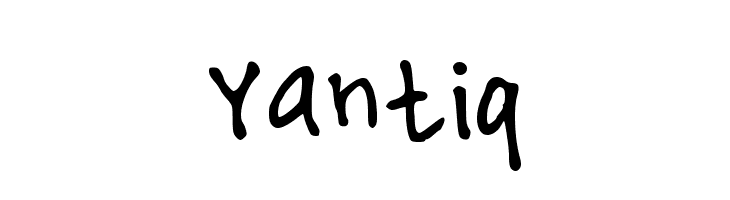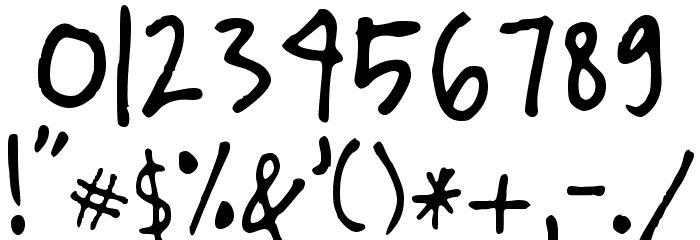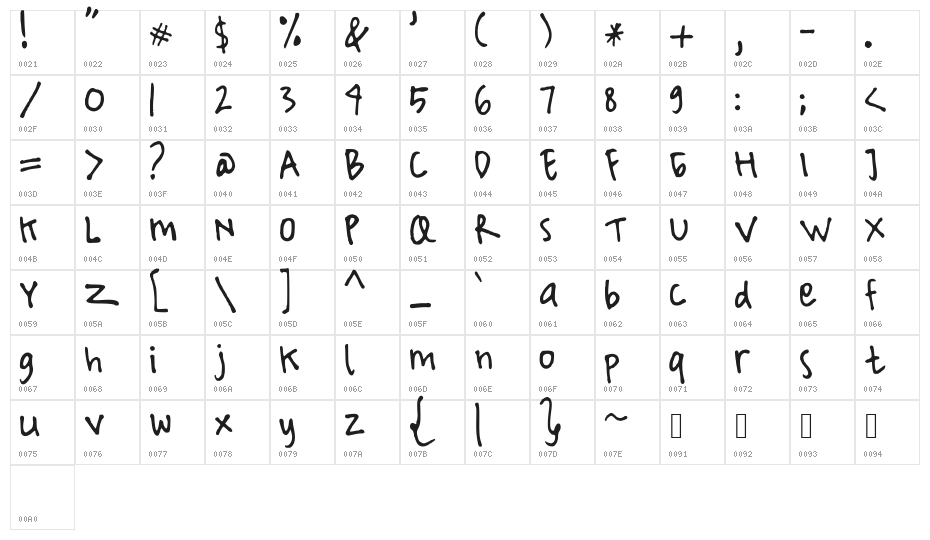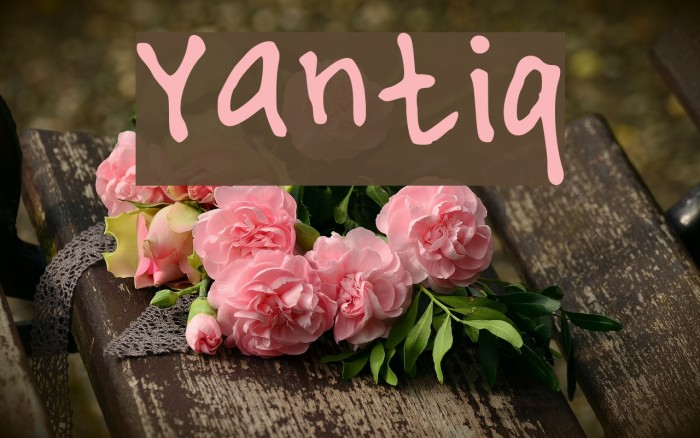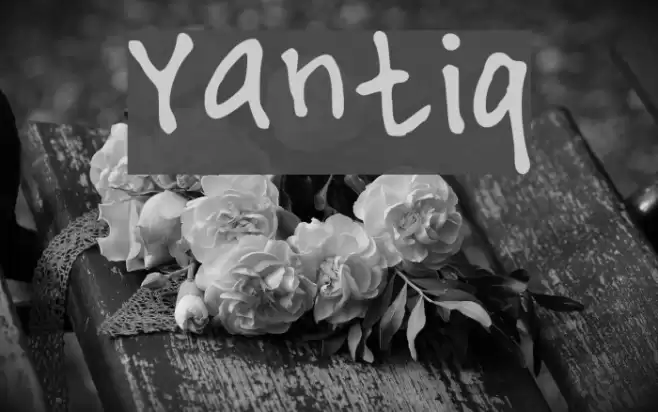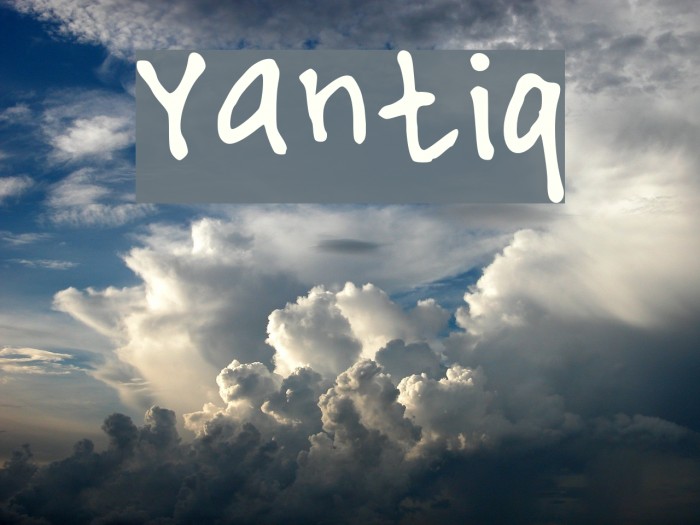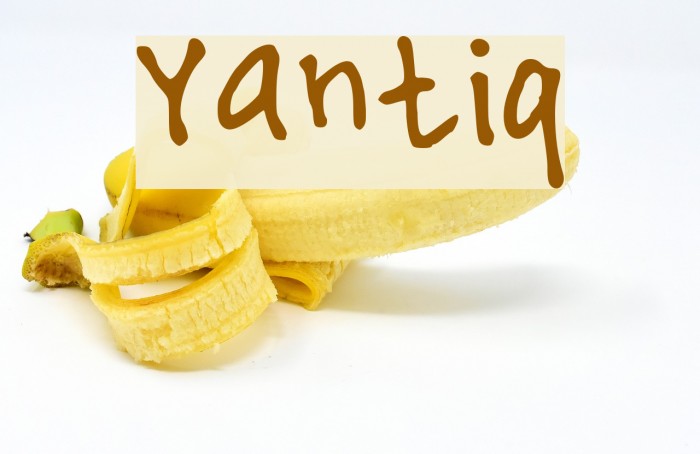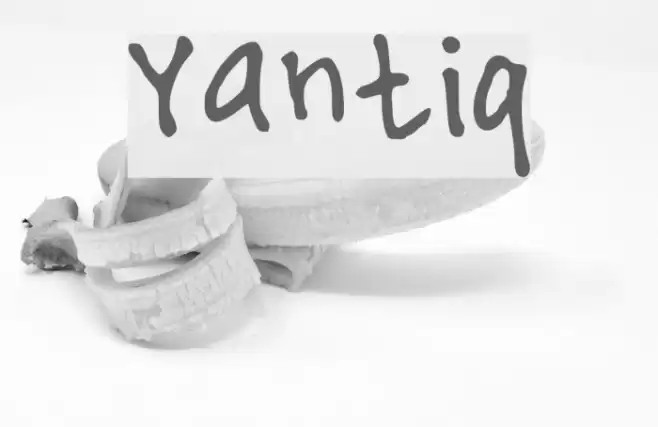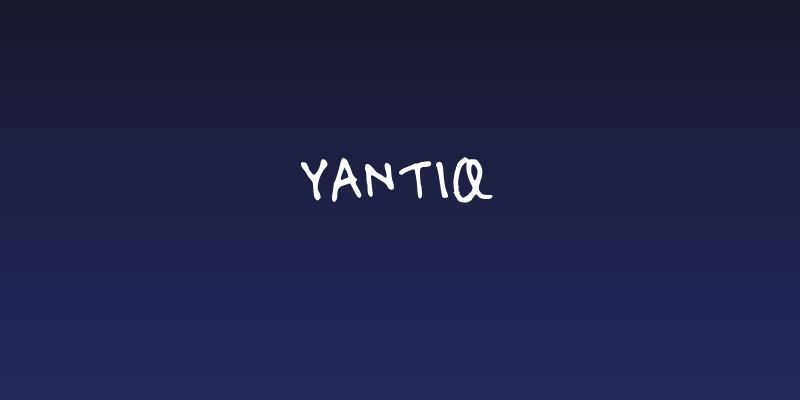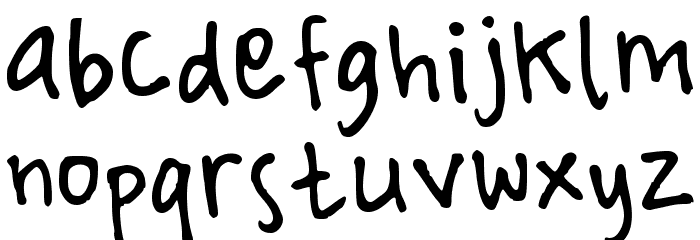
Yantiq Font
Yantiq Description
This font features a playful and casual handwritten style, characterized by its irregular and organic letterforms. The strokes are bold and slightly uneven, giving it a lively and informal appearance. The uppercase and lowercase letters maintain a consistent style, with rounded edges and a slight slant, enhancing its approachable and friendly look. The numerals and special characters follow the same design principles, ensuring a cohesive visual experience. This font is ideal for projects that require a personal touch or a relaxed vibe.
| Proposed Projects | Ideal for greeting cards, children's books, casual branding, and social media graphics. |